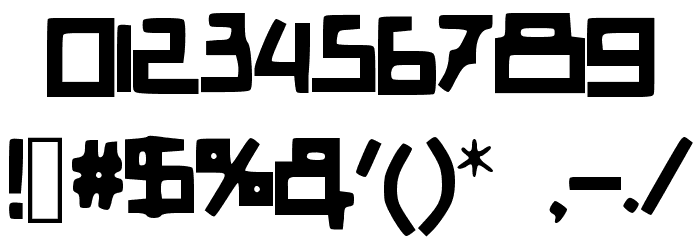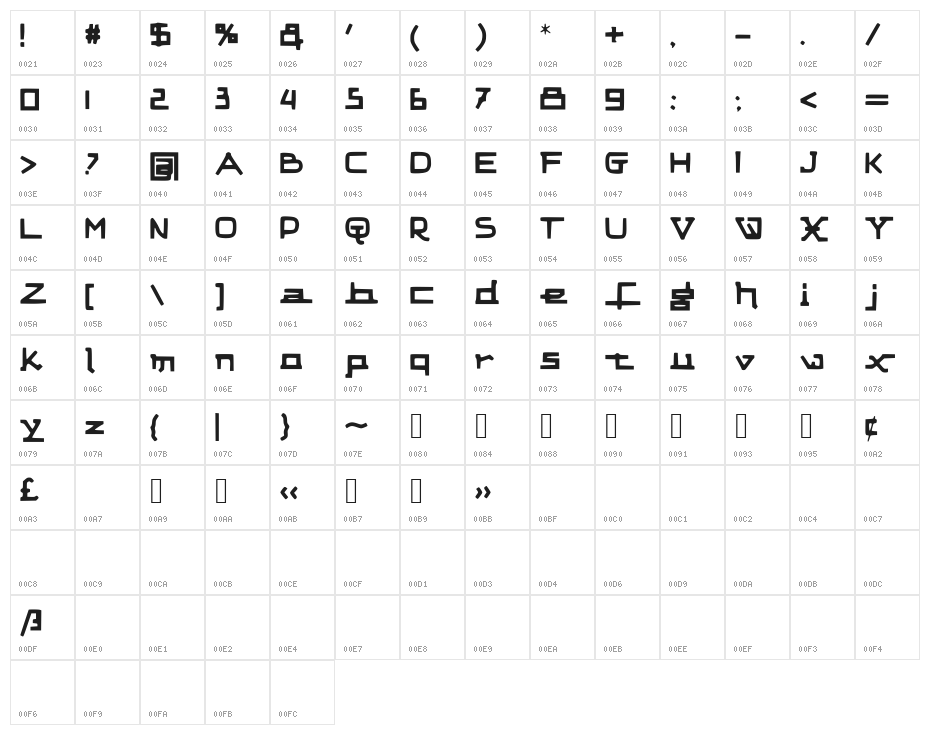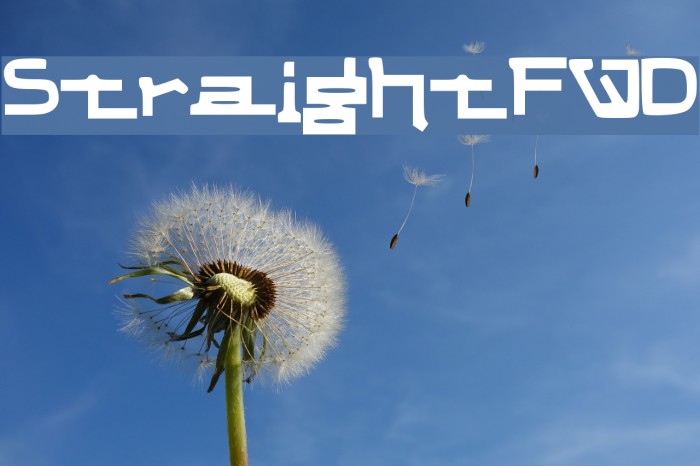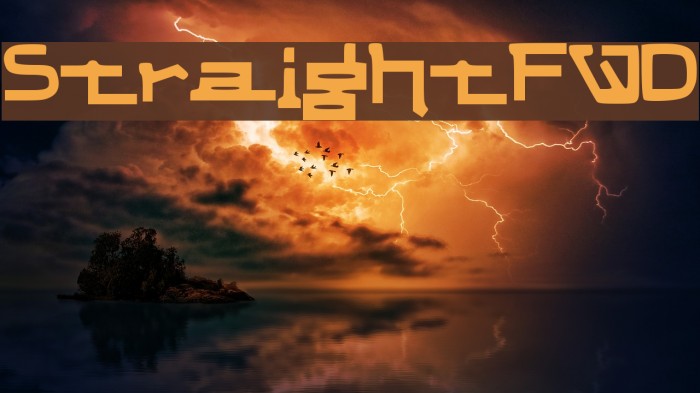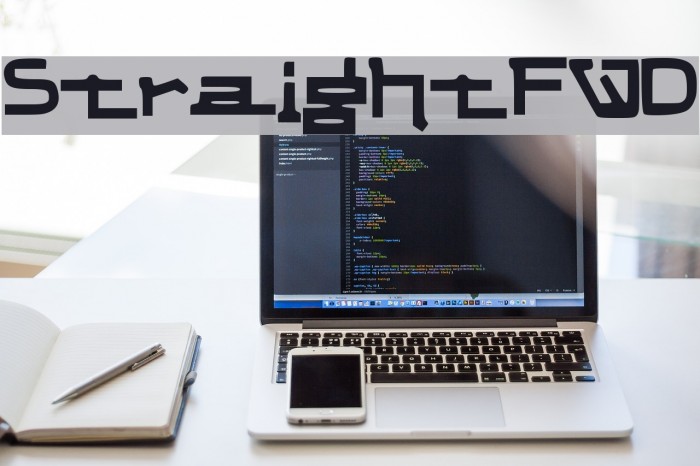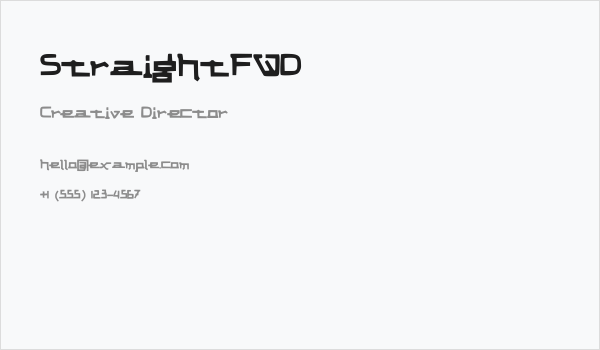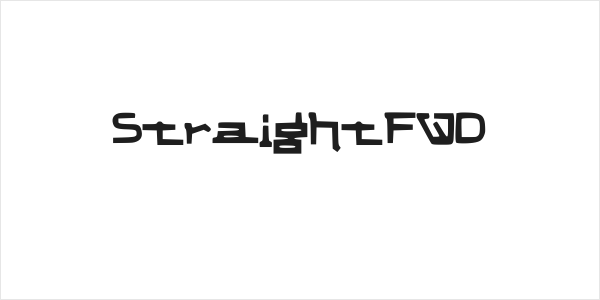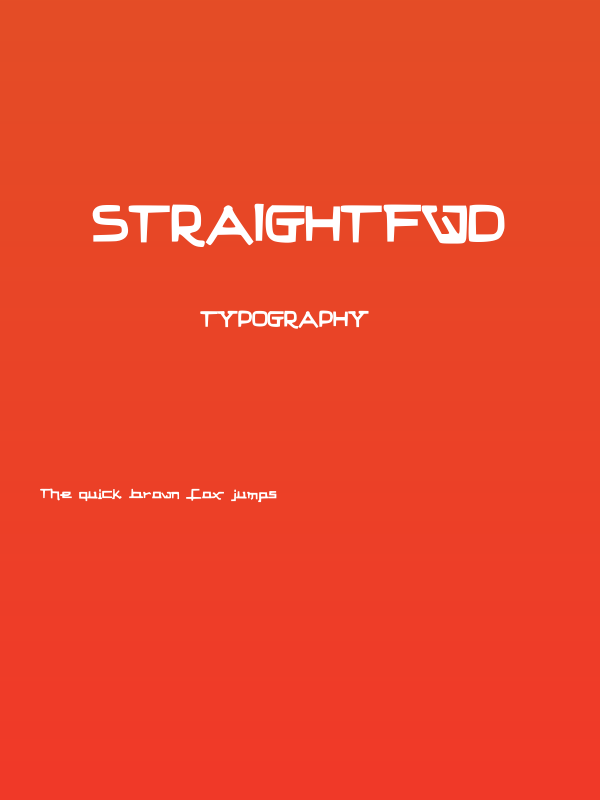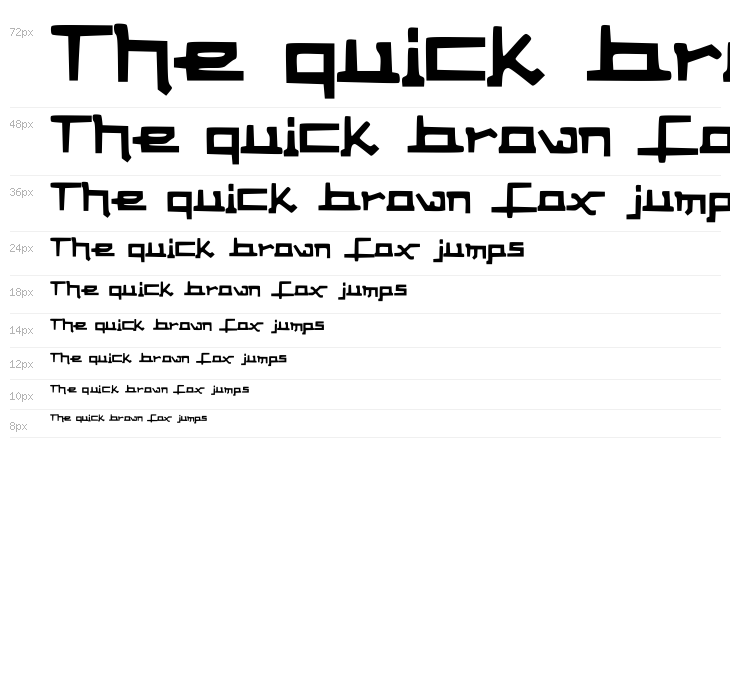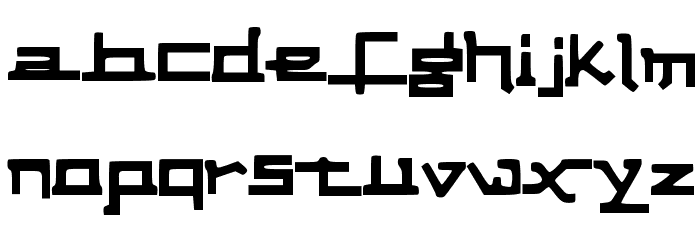
StraightFWD Font
StraightFWD Description
This font features a bold, geometric design with a futuristic flair. The characters are constructed with sharp angles and straight lines, giving it a modern and edgy appearance. The uppercase letters are particularly striking, with unique shapes that make each character stand out. The lowercase letters maintain the same angular style, creating a cohesive look across the alphabet. Numbers and special characters follow the same design principles, ensuring consistency throughout. This font's distinct style makes it ideal for projects that require a strong visual impact.